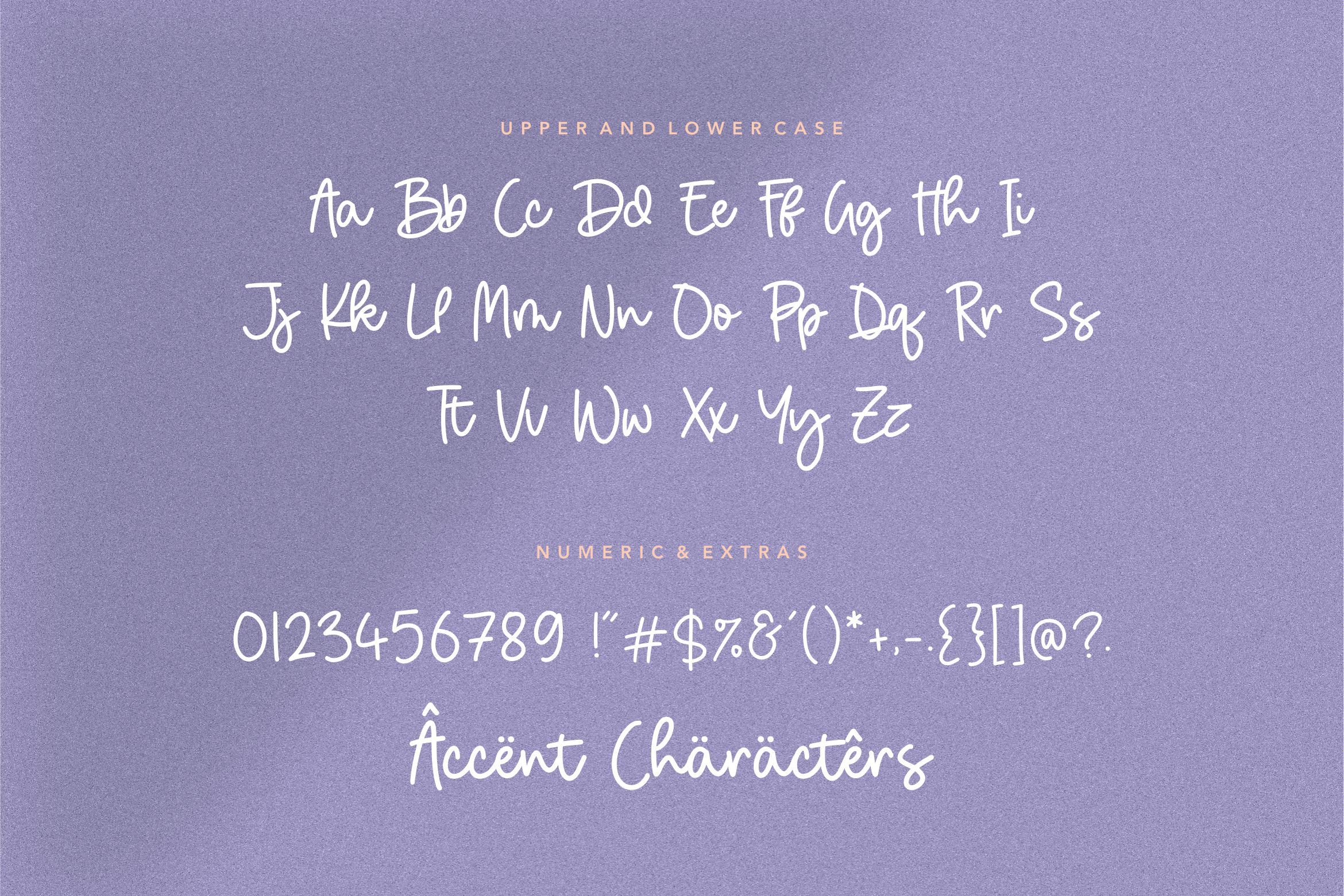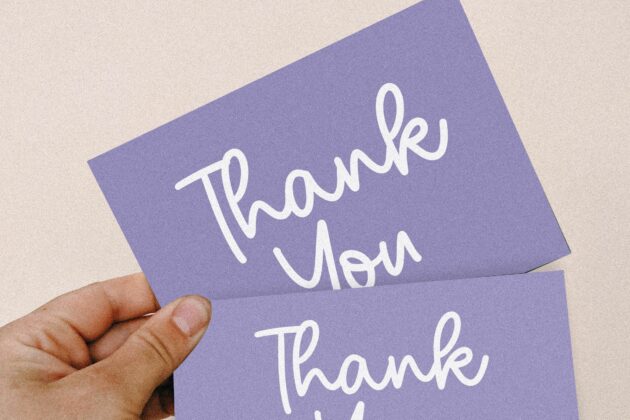
About Birdhave Modern Monoline Handwritten Font
Introducing by Letterative Studio : Birdhave Font Birdhave is a Modern Monoline Handwritten Font Birdhave is a flowing handwritten font, described by an elegant touch, perfect for your favorite projects. Fall in love with its incredibly distinct and timeless style and use it to create spectacular designs! This font includes : TTF and OTF Birdhave also multilingual support Enjoy the font! Feel free to comment or feedback Send me PM or email Thank you!